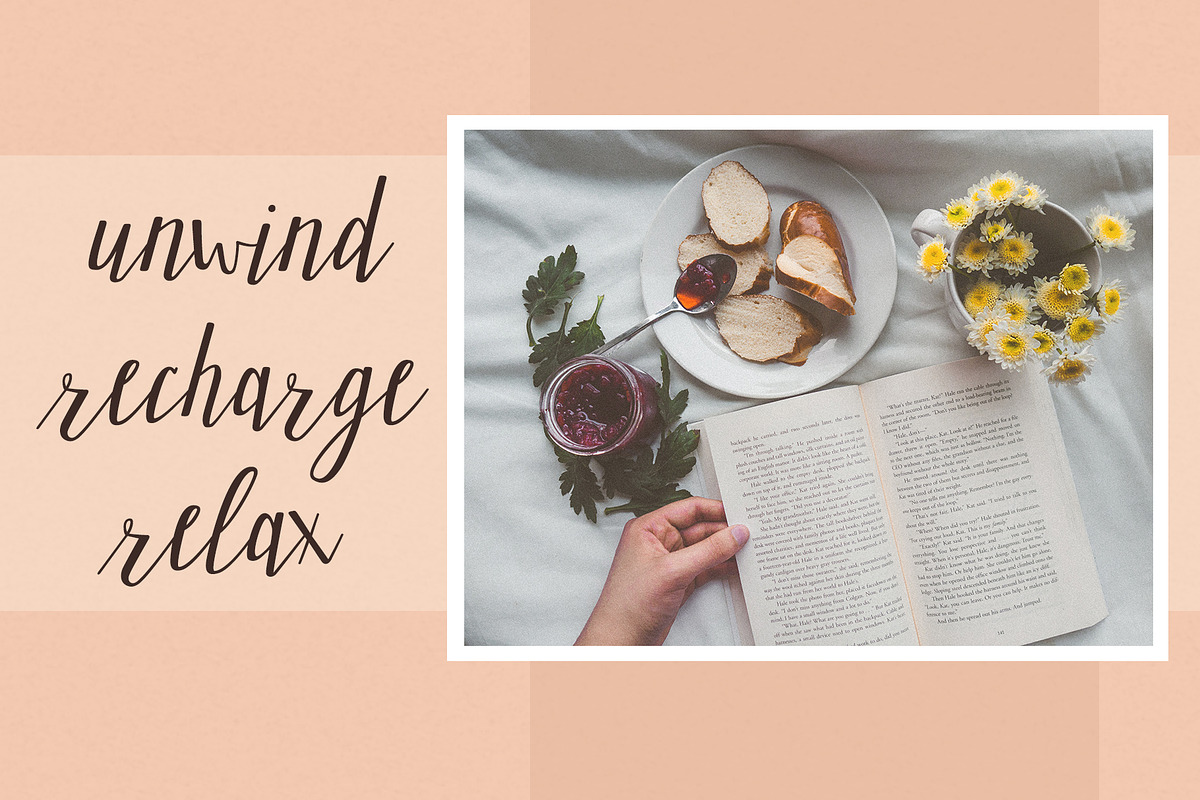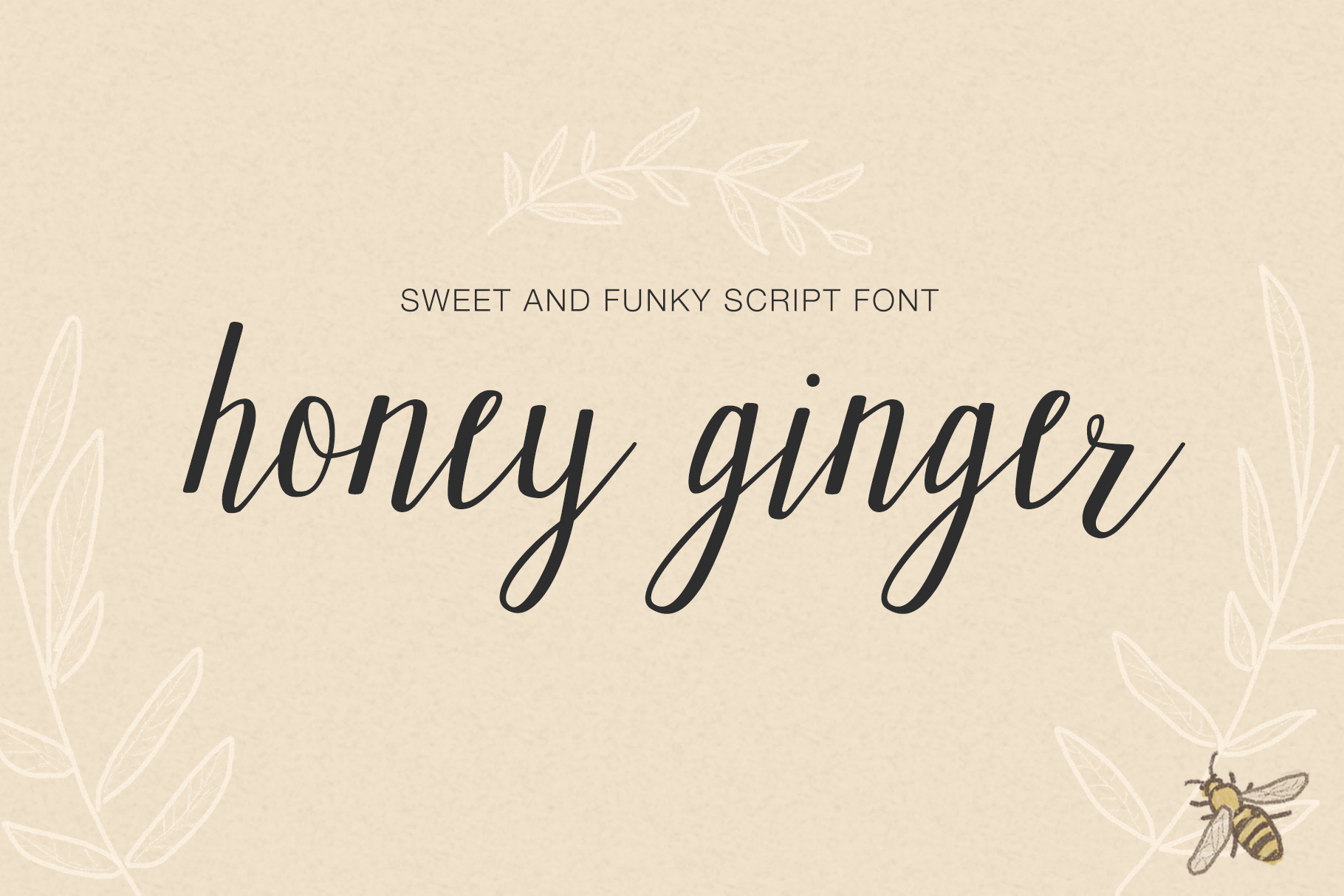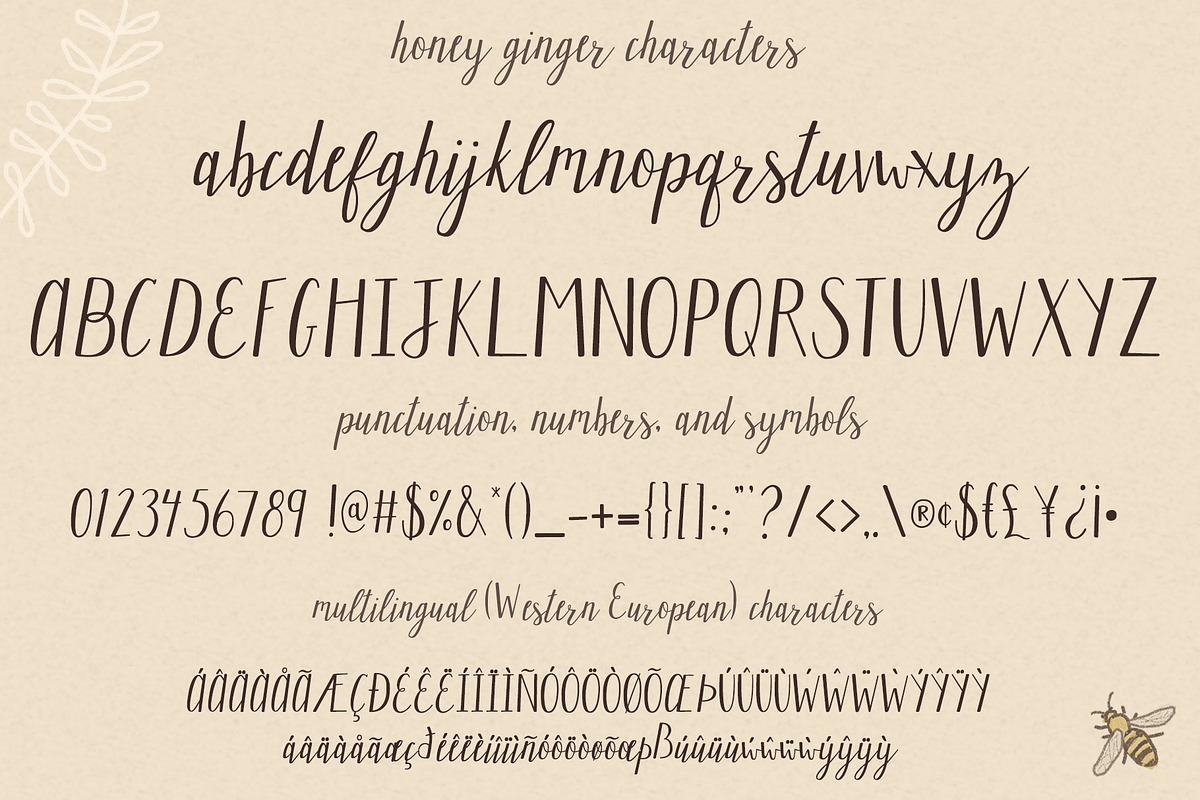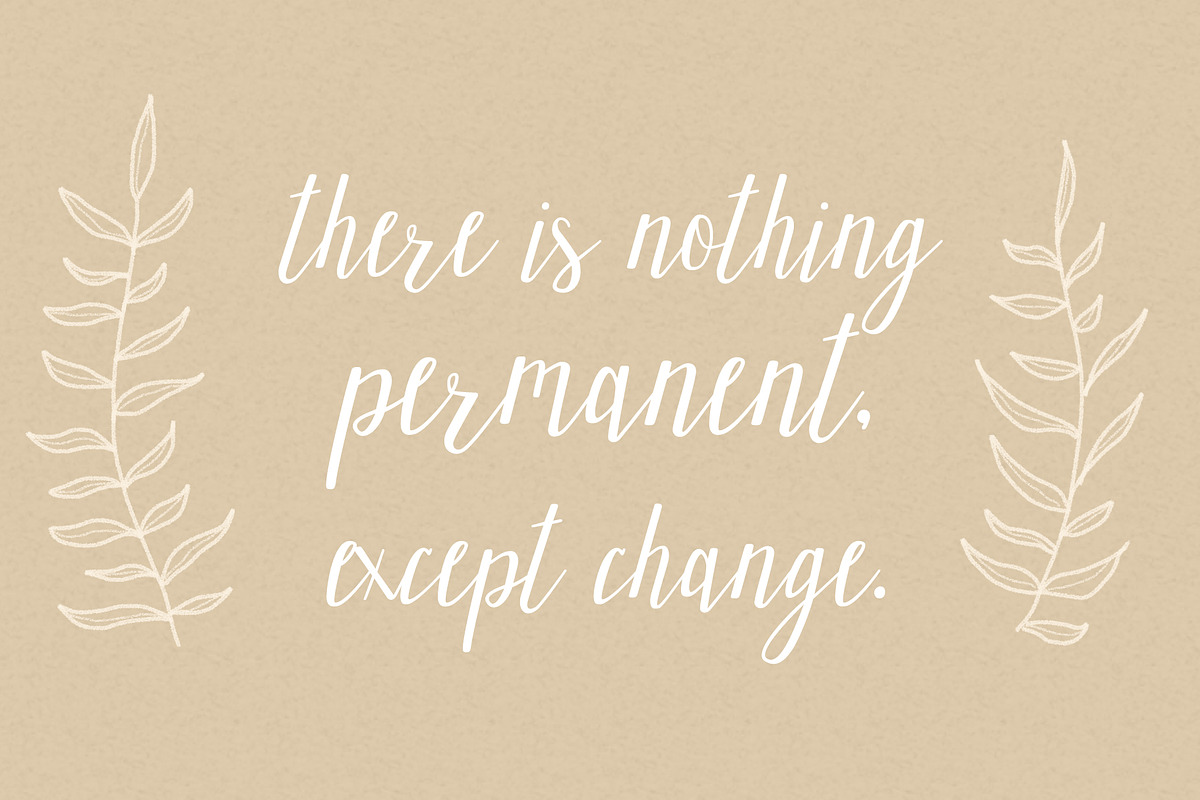
Honey Ginger Handwritten Font
Sweet & funky. Candied & spicy. Honey Ginger script font will bring a lively twist to your blog posts, Instagram images, web design, invitations, stationary, packaging, and more!